A greeting card font has to do something most fonts on this site don’t: carry an emotional tone on its own, before a single word is read. A birthday card in a stiff corporate sans or a sympathy card in a bouncy display font both undercut the message — these ten are grouped by the tone they naturally carry. If you’ve been searching for free fonts for greeting cards, these picks are curated with exactly that in mind.
Quick Comparison
| Font | Style | Best For |
|---|---|---|
| Dancing Script | Lively bouncing script | Birthday and thank-you cards |
| Merriweather | Warm, sturdy serif | Sympathy and thoughtful cards |
| Caveat | Casual handwriting | Personal, handwritten-feeling notes |
| Playfair Display | Elegant high-contrast serif | Holiday and formal greeting cards |
| Kalam | Handwriting with character | Friendly, casual cards |
| Courgette | Flowing script | Warm congratulations cards |
| Josefin Sans | Art Deco geometric sans | Modern, minimalist cards |
| Yellowtail | Retro brush script | Fun, celebratory cards |
| Libre Baskerville | Classic serif | Formal and sympathy card text |
| Patrick Hand | Casual handwriting | Kids’ cards and casual notes |
Dancing Script
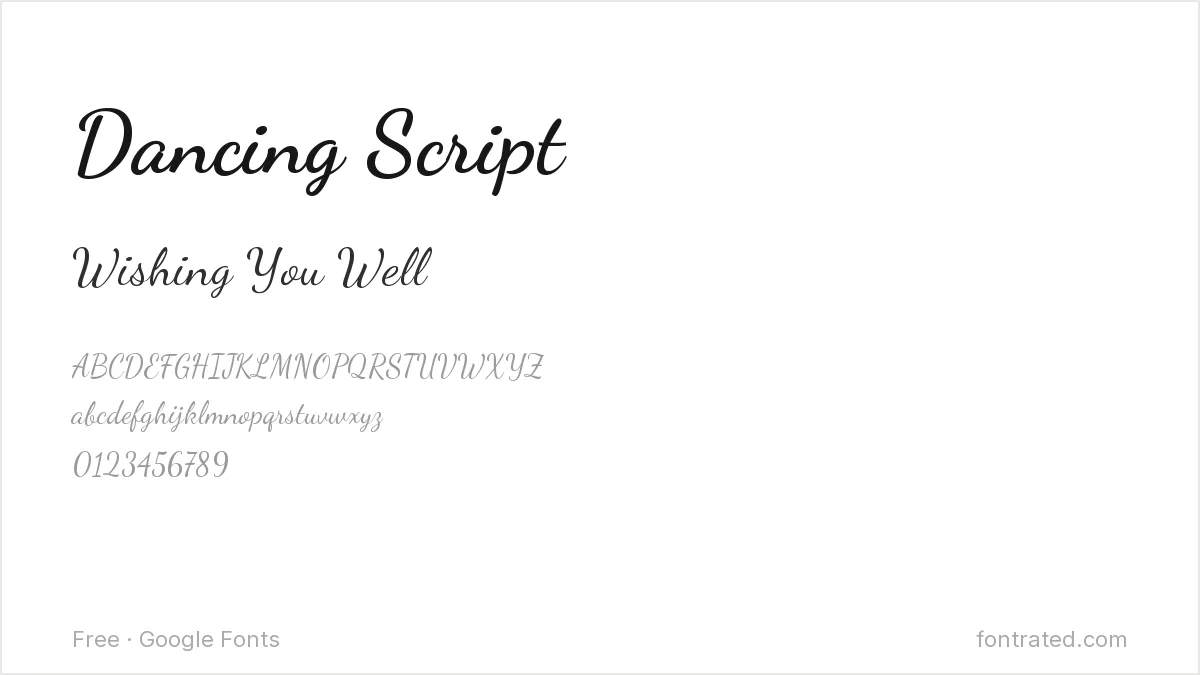
A lively, bouncing script with a casual, upbeat energy, Dancing Script suits a birthday or thank-you card that wants to feel warm and a little playful rather than formal.
Merriweather
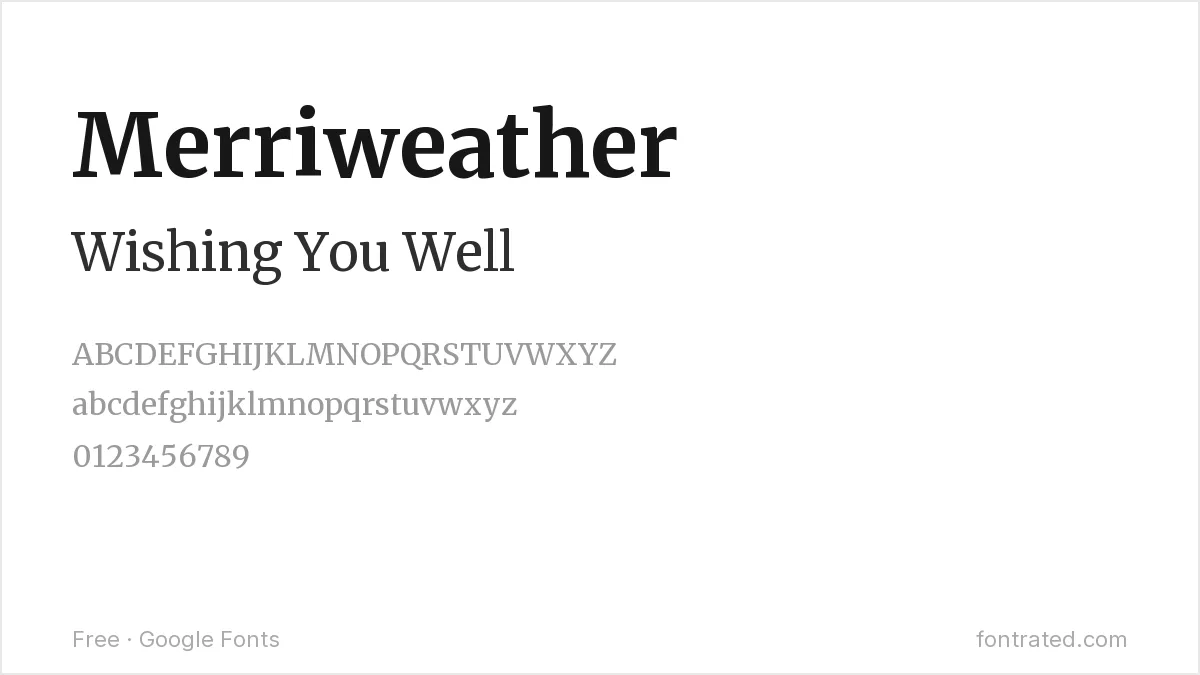
Designed specifically for comfortable screen reading with sturdy strokes, Merriweather carries a quiet, steady warmth that suits a sympathy card or any message that needs to feel considered rather than celebratory.
Caveat
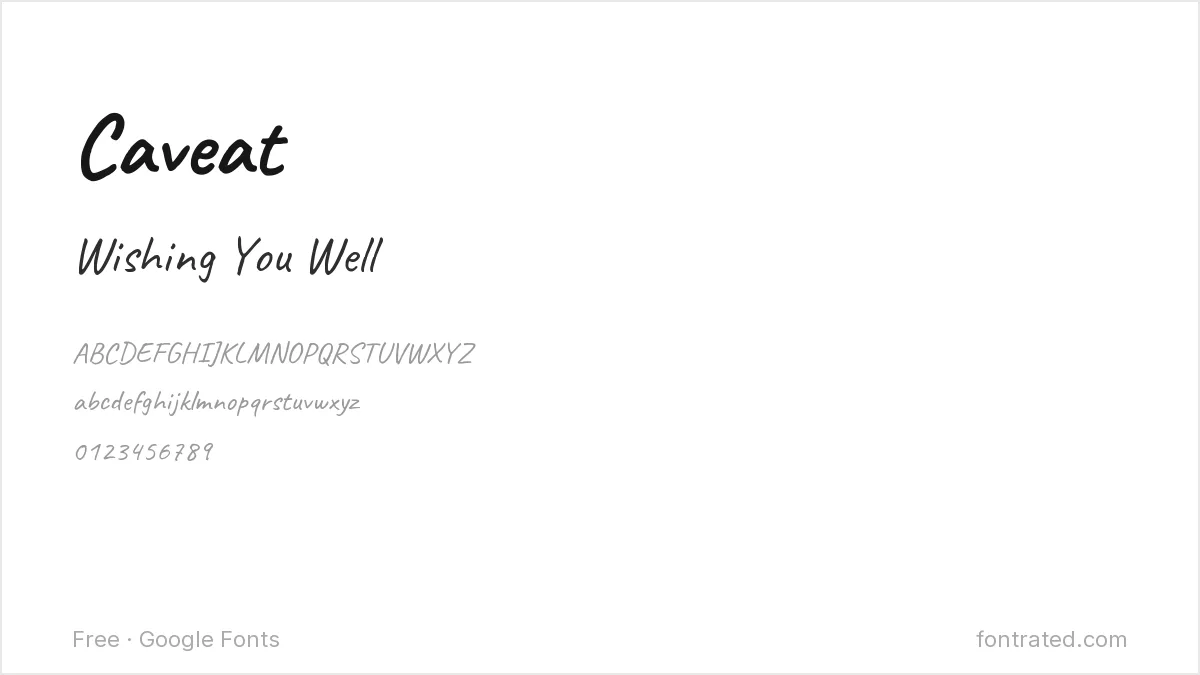
A natural handwriting font with genuine variation between letters, Caveat reads as personal rather than mass-produced — useful when a card wants to feel like an actual handwritten note.
Playfair Display
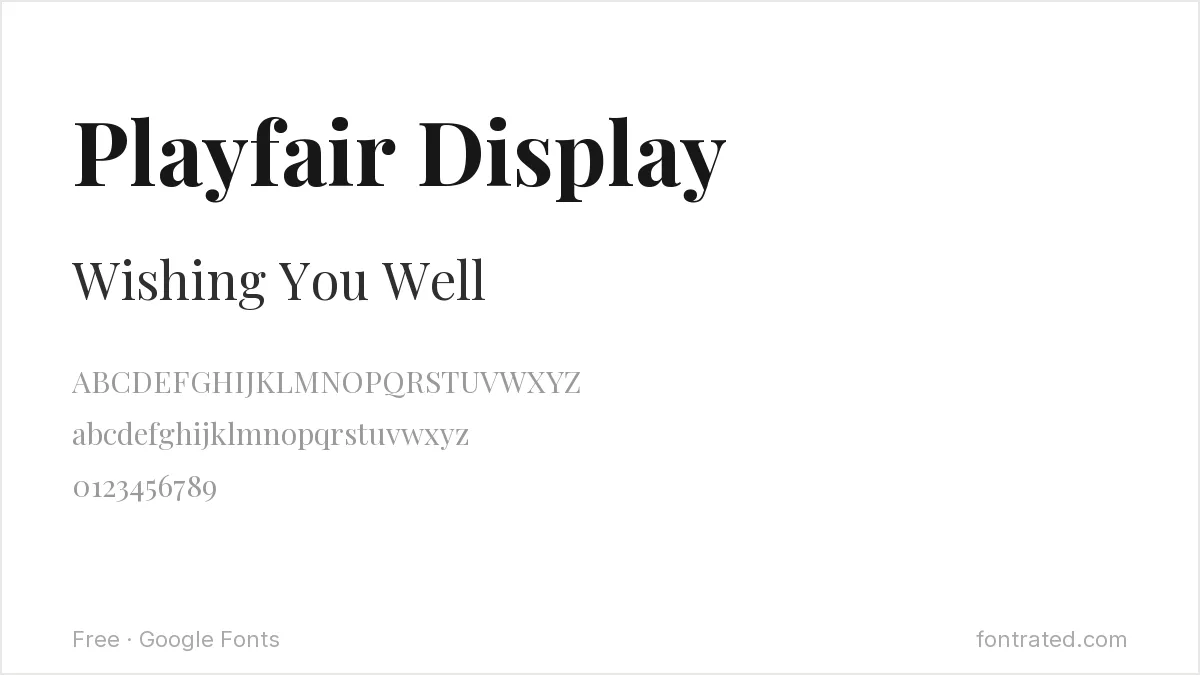
Playfair Display’s elegant, high-contrast letterforms suit a more formal holiday card or an occasion (an anniversary, a graduation) that calls for a bit more polish than a casual script.
Kalam
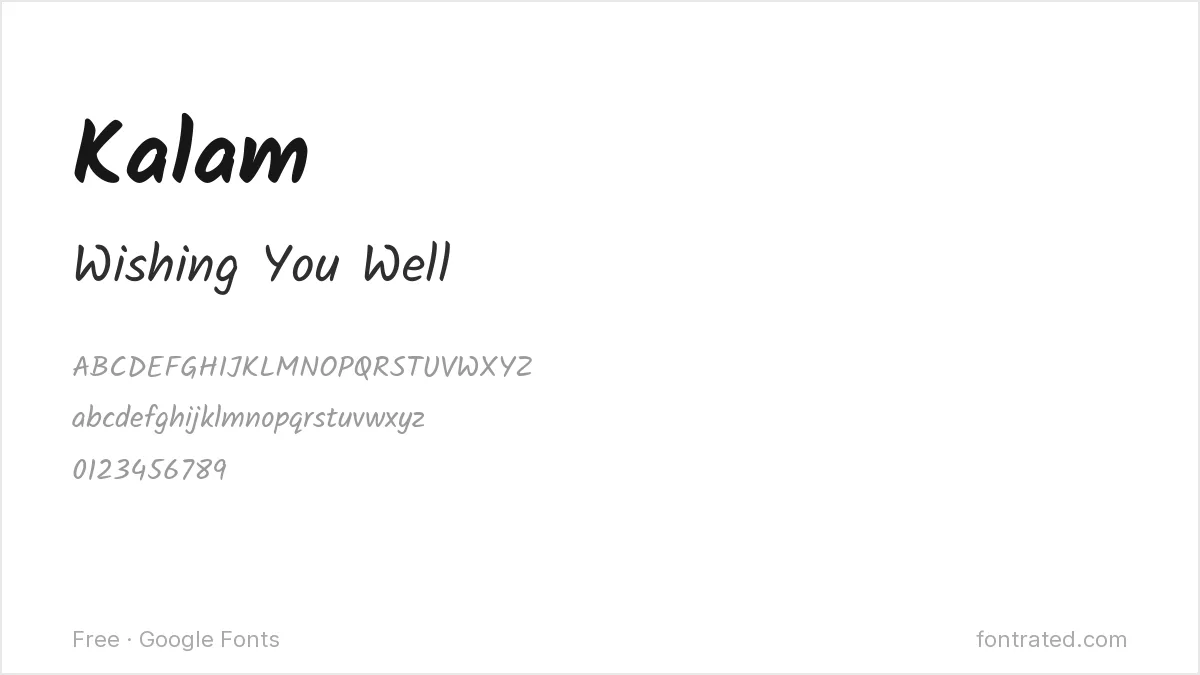
A handwriting font with more visible personality and texture than a cleaner script, Kalam suits a casual card that wants to feel warm and unpolished in a good way.
Courgette
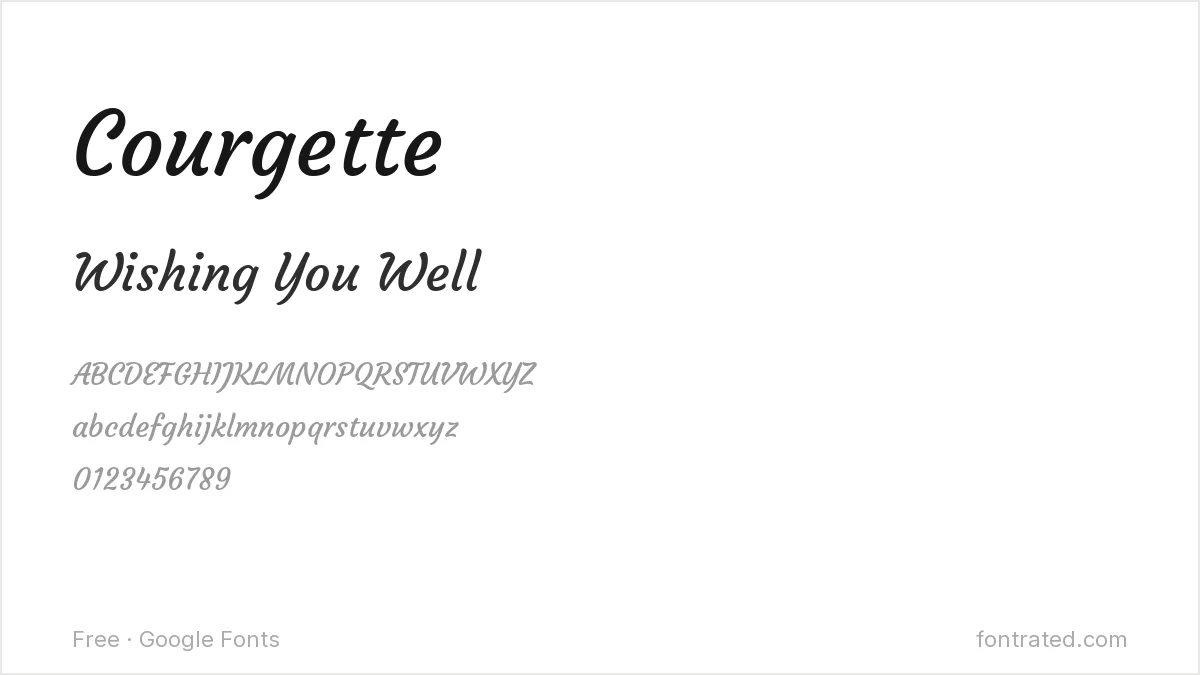
A flowing, rounded script with a friendly, unhurried feel, Courgette works well for a congratulations card — warm without tipping into overly formal calligraphy.
Josefin Sans
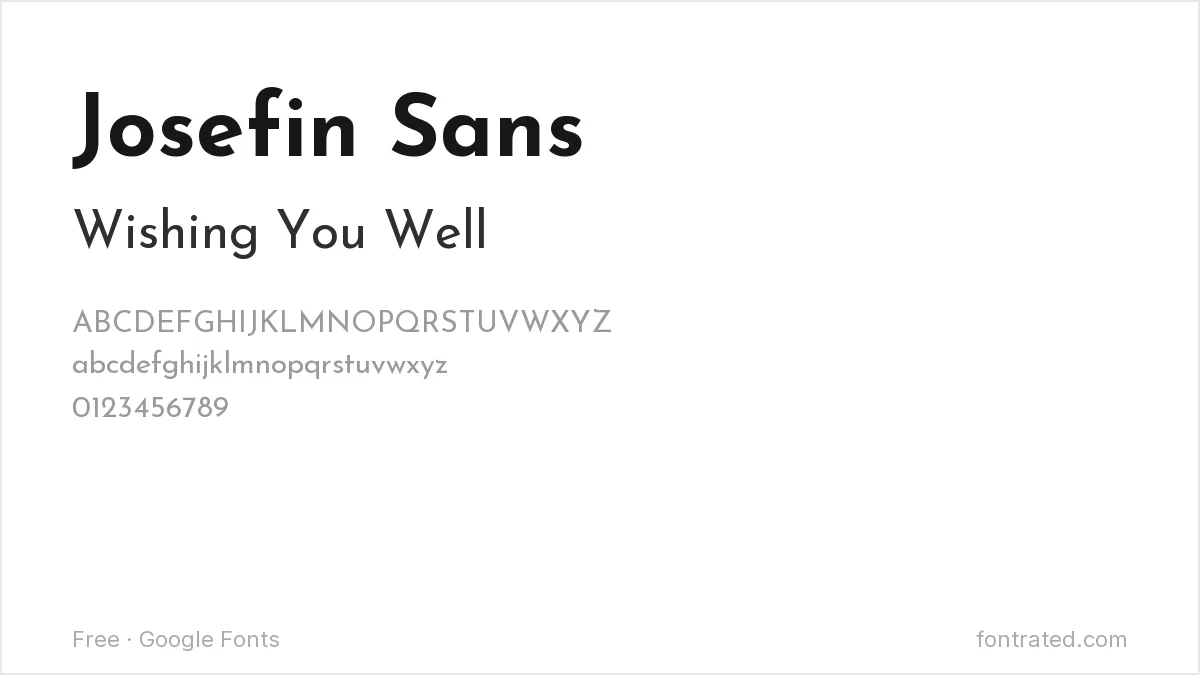
A geometric sans with 1920s Art Deco proportions, Josefin Sans suits a modern, minimalist card design that wants clean typography rather than a script’s warmth.
Yellowtail
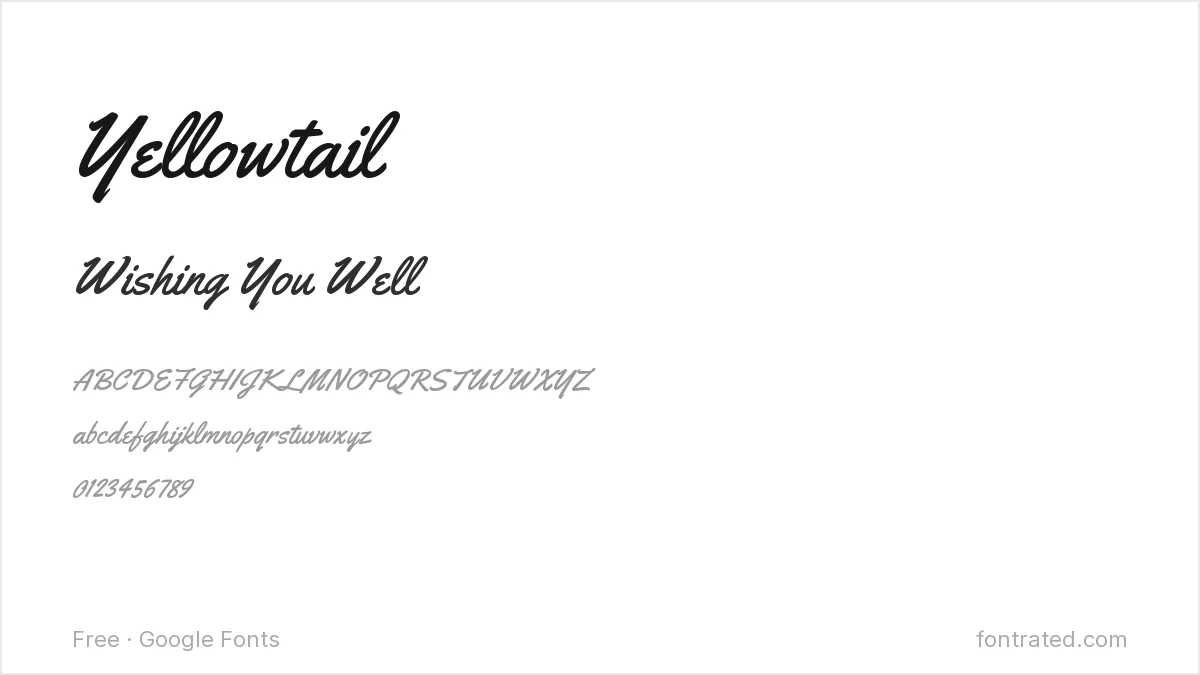
A bold retro brush script with real confidence and swing, Yellowtail suits a celebratory card — a new job, an engagement, good news — that wants energy on the page.
Libre Baskerville
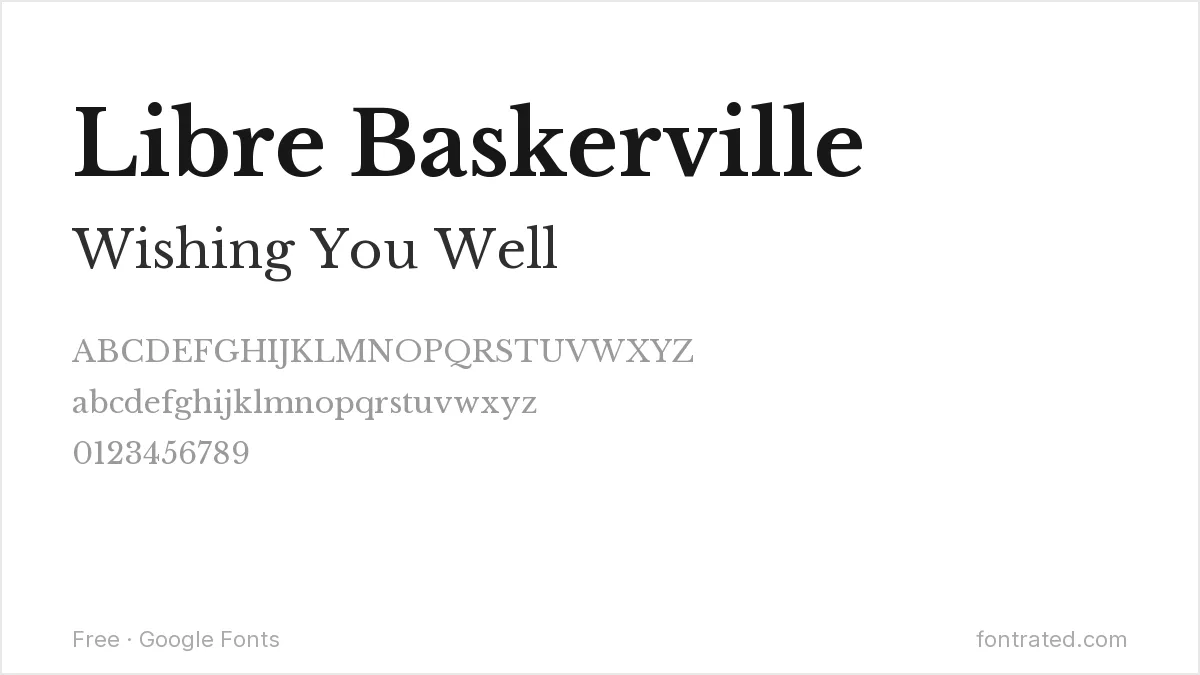
A respected, restrained serif adapted for print and screen reading, Libre Baskerville gives a formal or sympathy card a trustworthy, unfussy feel.
Patrick Hand
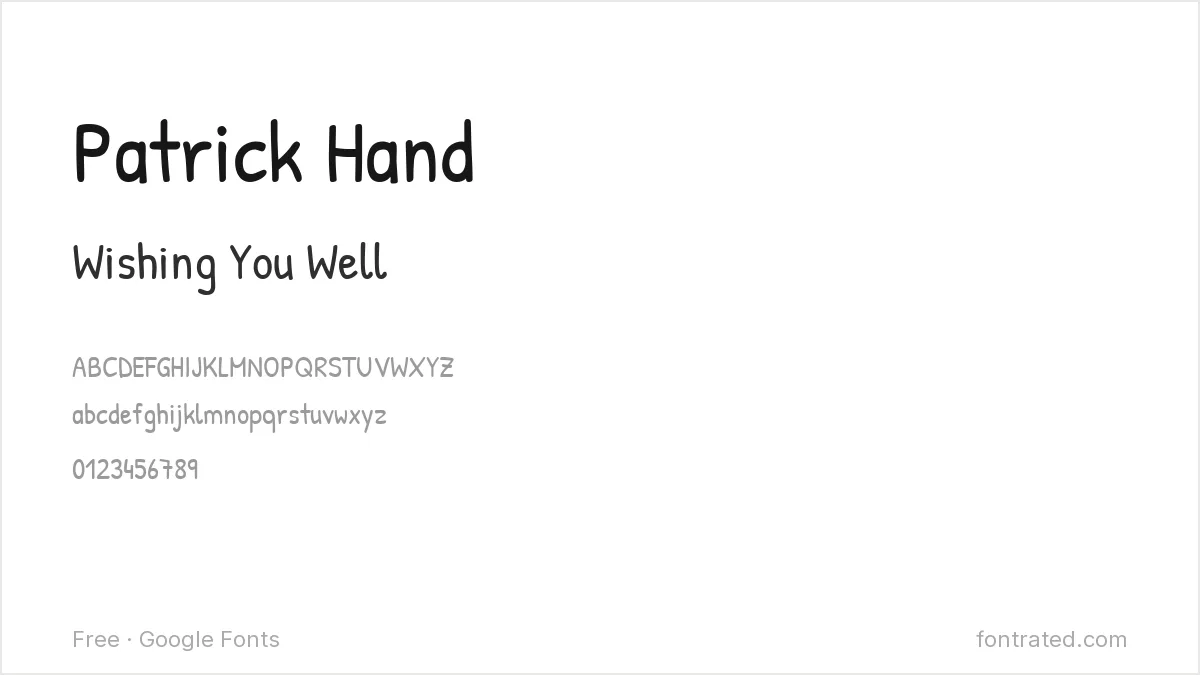
A rounder, simpler handwriting font than Caveat or Kalam, Patrick Hand has a slightly childlike quality that suits a card made for or by a kid, or any note that wants to feel unpretentious.
Which one should you actually pick? Match the font to the occasion’s emotional register before anything else — Merriweather or Libre Baskerville for sympathy and formal occasions, Dancing Script or Yellowtail for birthdays and celebrations, Caveat or Patrick Hand whenever a card wants to feel personally handwritten.
How do I match a font to the right tone for a specific occasion?
Read the font at the actual message size, out loud if it helps — a script that feels celebratory for a birthday can feel oddly cheerful on a sympathy card. When in doubt, a plainer serif (Merriweather, Libre Baskerville) is safer for a serious occasion than an ornate script.
Should the inside message use the same font as the cover?
Not necessarily — a display script on the cover can be hard to read in a longer inside message. A common approach is a distinctive script or display font for the short cover line, and a plainer, more legible font (Merriweather, Libre Baskerville) for a longer message inside.